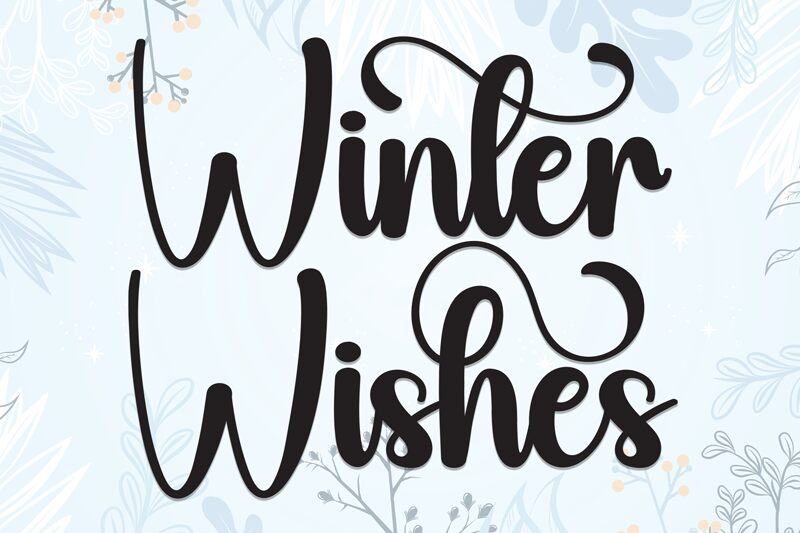
Winter Wishes font by Scratchones is a free font with a stylish, decorative, and elegant design. The script font features dynamic flowing lines and a wonderful whimsical style that makes it suitable for many personal and non-professional projects. Its cursive documentation is composed of modern and classic elements with slightly different letter designs. You can combine the letters according to the specific word you want to form coherent with a personal touch.
So, users can go for thank you cards, invitations, wedding packaging, book covers, greeting cards, branding, logos, handwritten quotes, and social media posts, especially if the project has a special relation to the holidays.
These contemporary letter styles are perfect for various applications, including wall displays, wedding invitations, social media logos, advertisements, product packaging, product designs, labels, photography, watermarks, invitations, stationery, and any project requiring elegant handwriting.